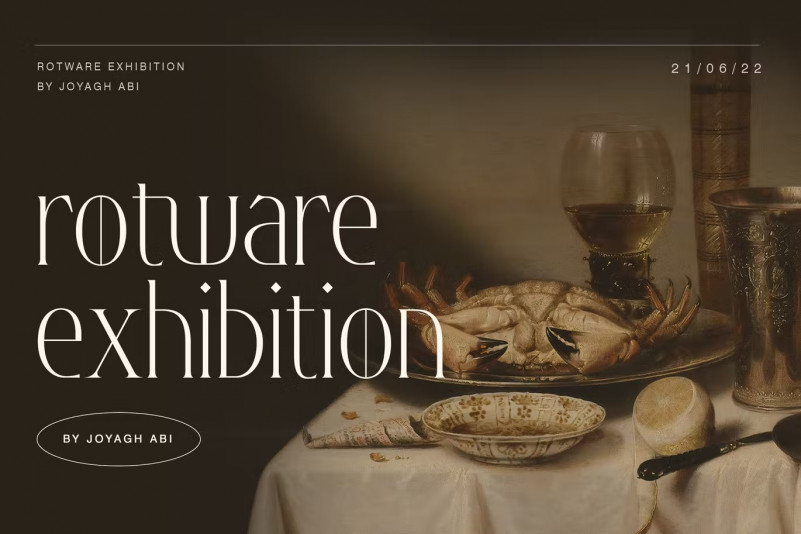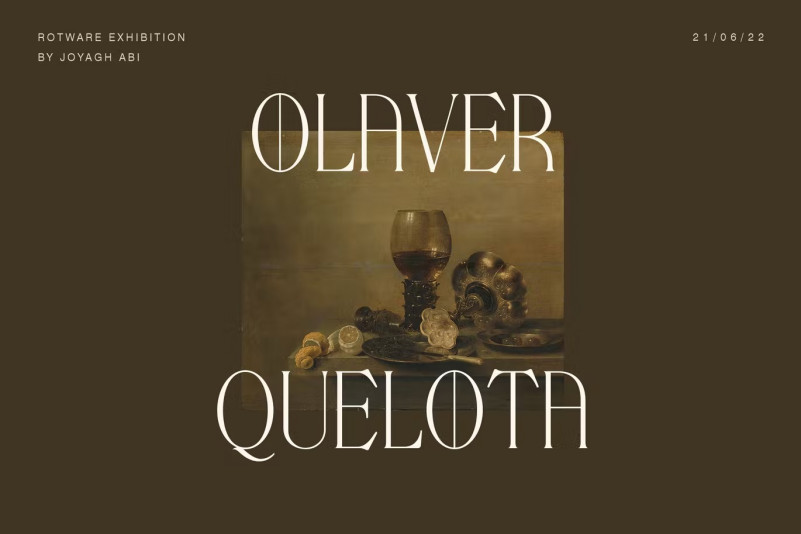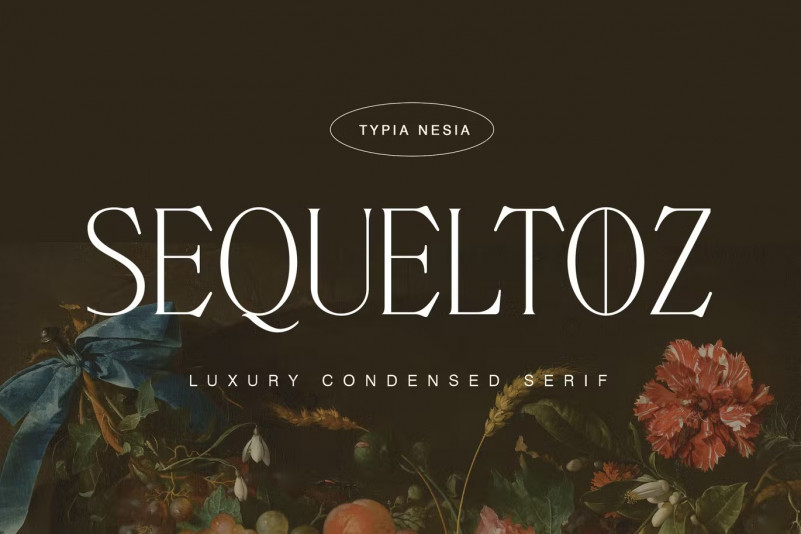
Sequeltoz Font
Sequeltoz – Classic and Luxury Condensed Serif – Beauty Elegant Fancy Modern Font
Sequeltoz Classic Serif font is perfect for your up coming projects. Such as luxury logo and branding, classy editorial design, woman magazine, cosmetic brand, fashion promotional, art gallery branding, museum, historical of architectural, boutique branding, stationery design, blog design, modern advertising design, card invitation, art quote, home decor, book/cover title, special events and any more.